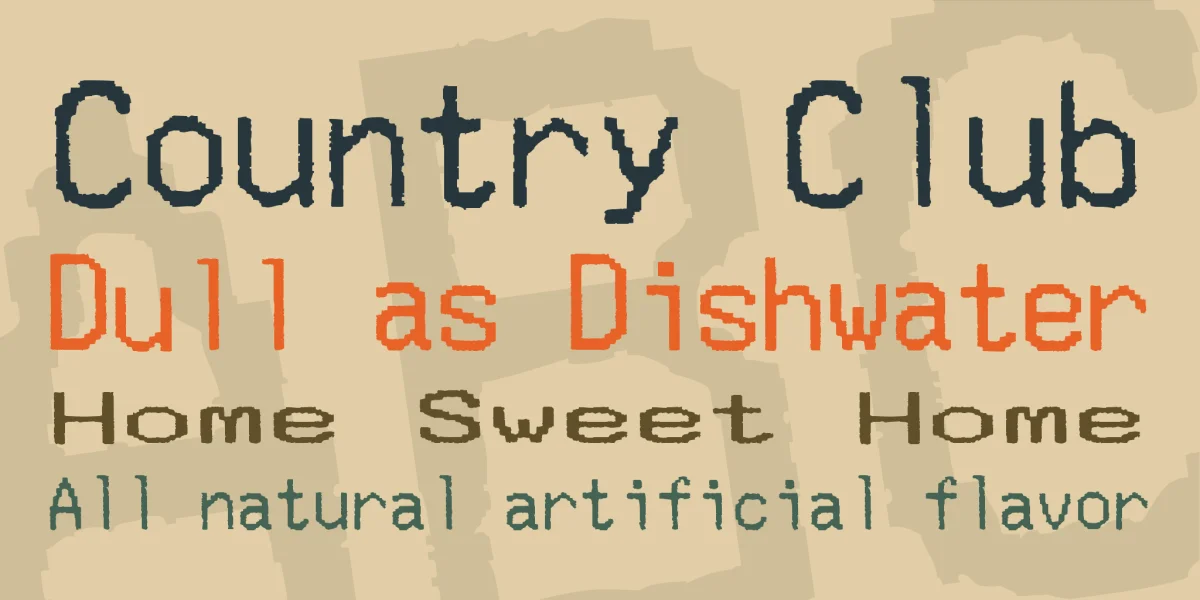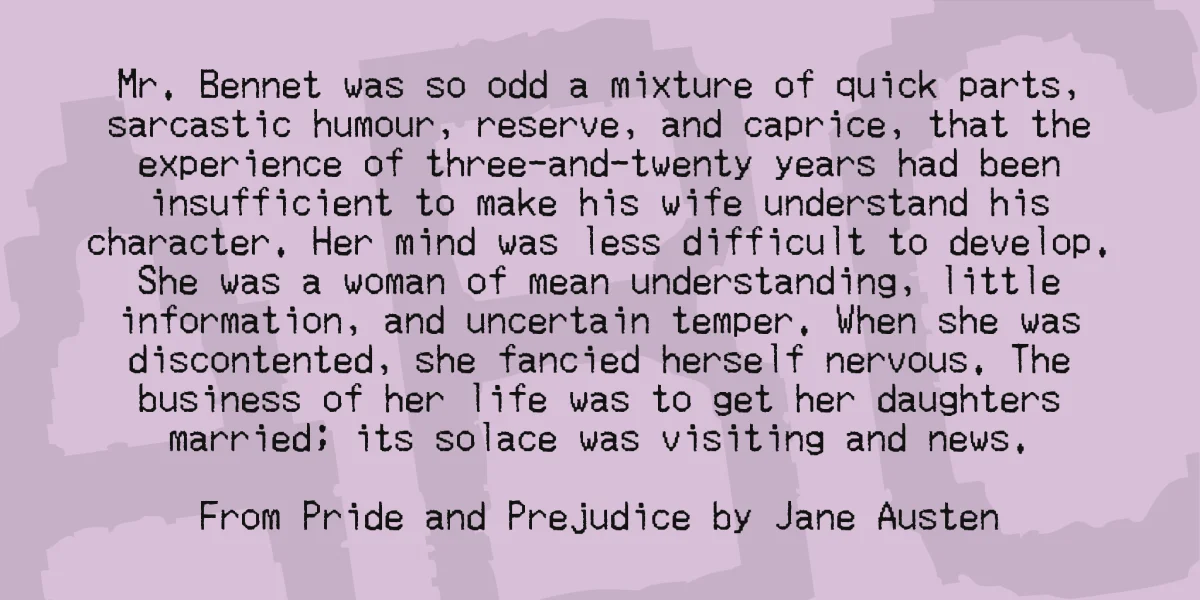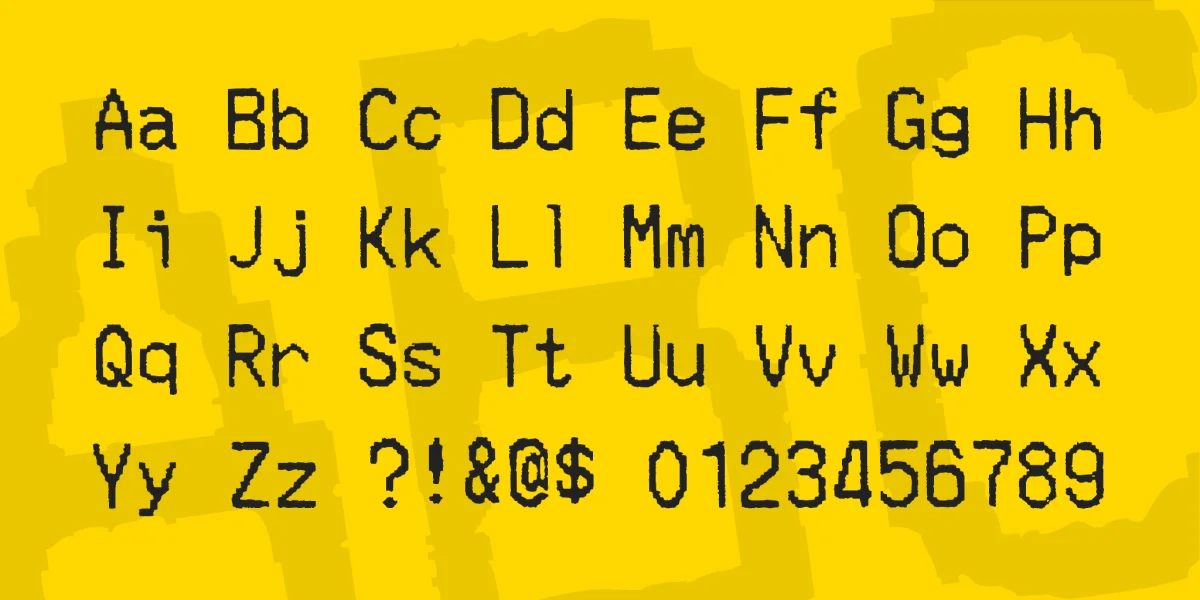
"Merchant Copy" is a family of three fonts (Merchant Copy, Merchant Copy Wide, and Merchant Copy Doublesize), mimicking dot-matrix print of the kind you'd get on a modern receipt. I built it from high-res scans of printout samples, and scaled it to match the original as closely as possible. If you set the type to exactly 12 points ... it won't be 12 points, but it will be the same scale as a real receipt (the "Doublesize" variant isn't just the regular font at twice the scale, either, it's a completely different font with an appropriately-scaled level of detail). The fonts are all fixed-width, and include full U.S. keyboard sets (along with duplicate glyphs for things like smart-quotes, which I recommend using since the regular quotes are curled in one direction, to match the source).